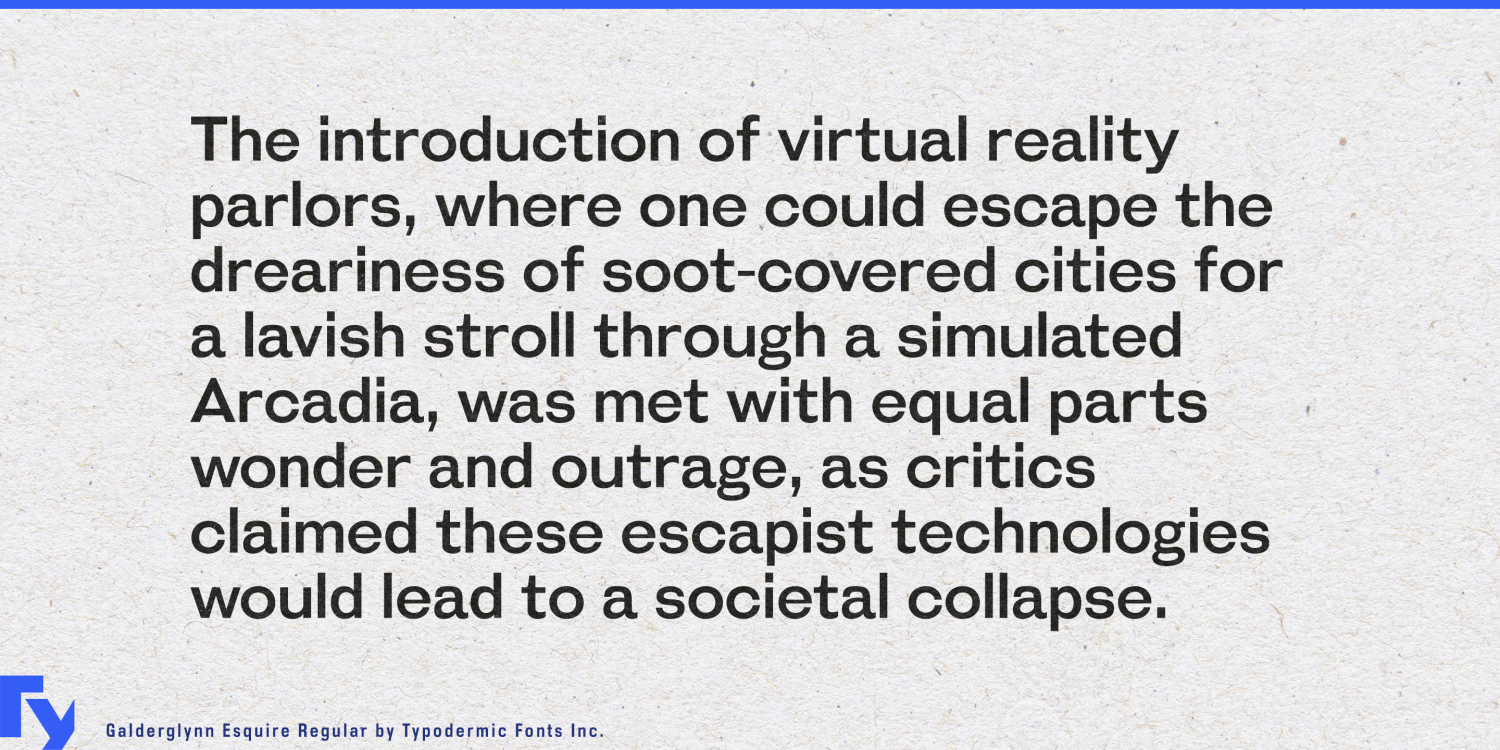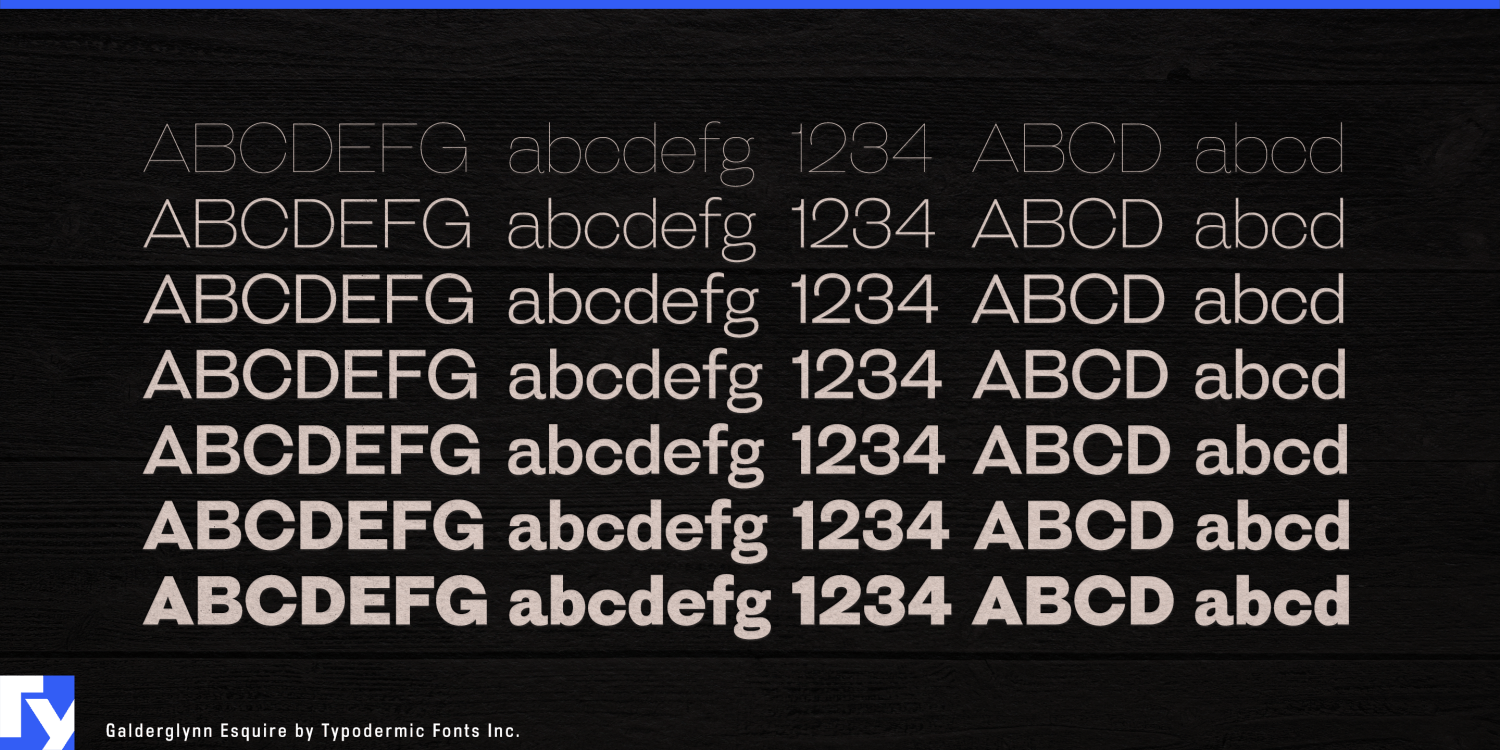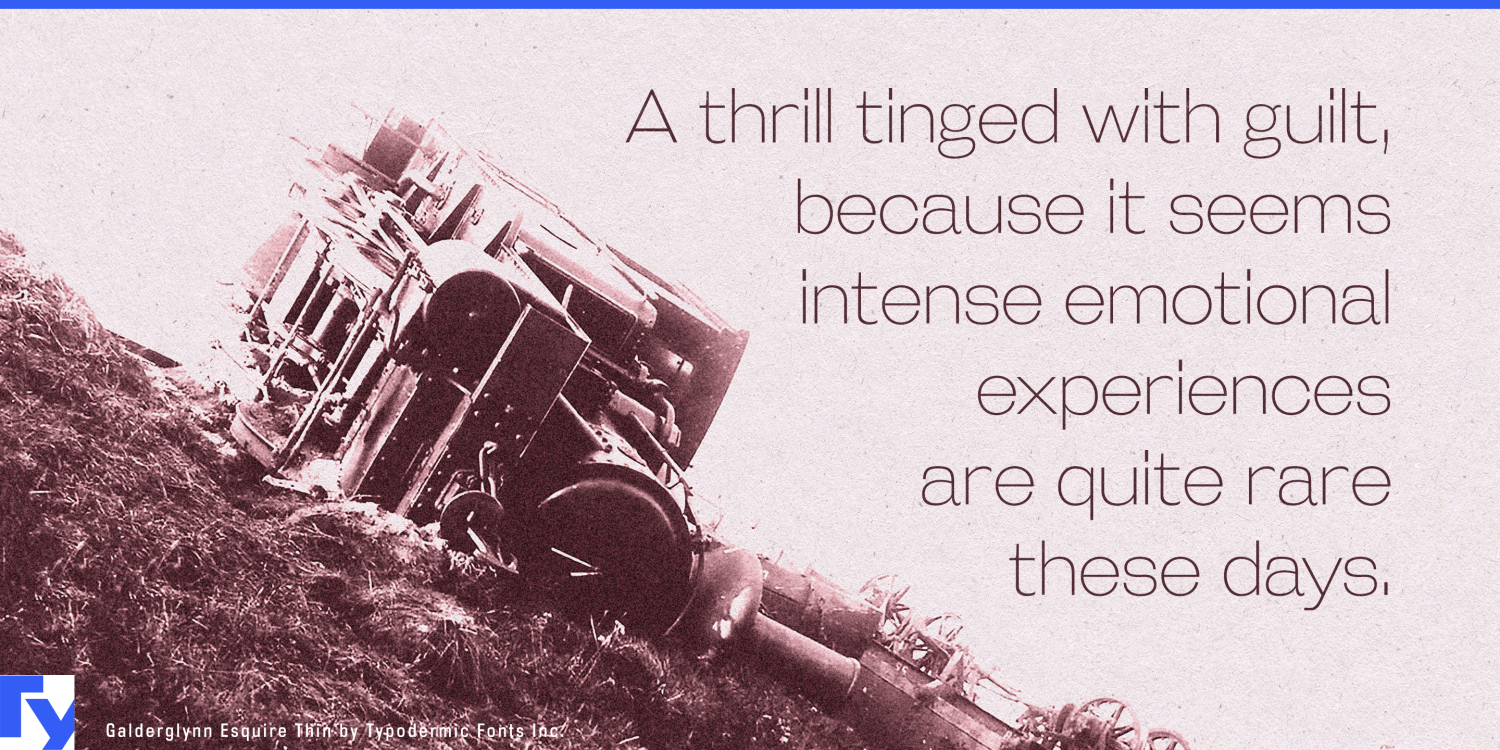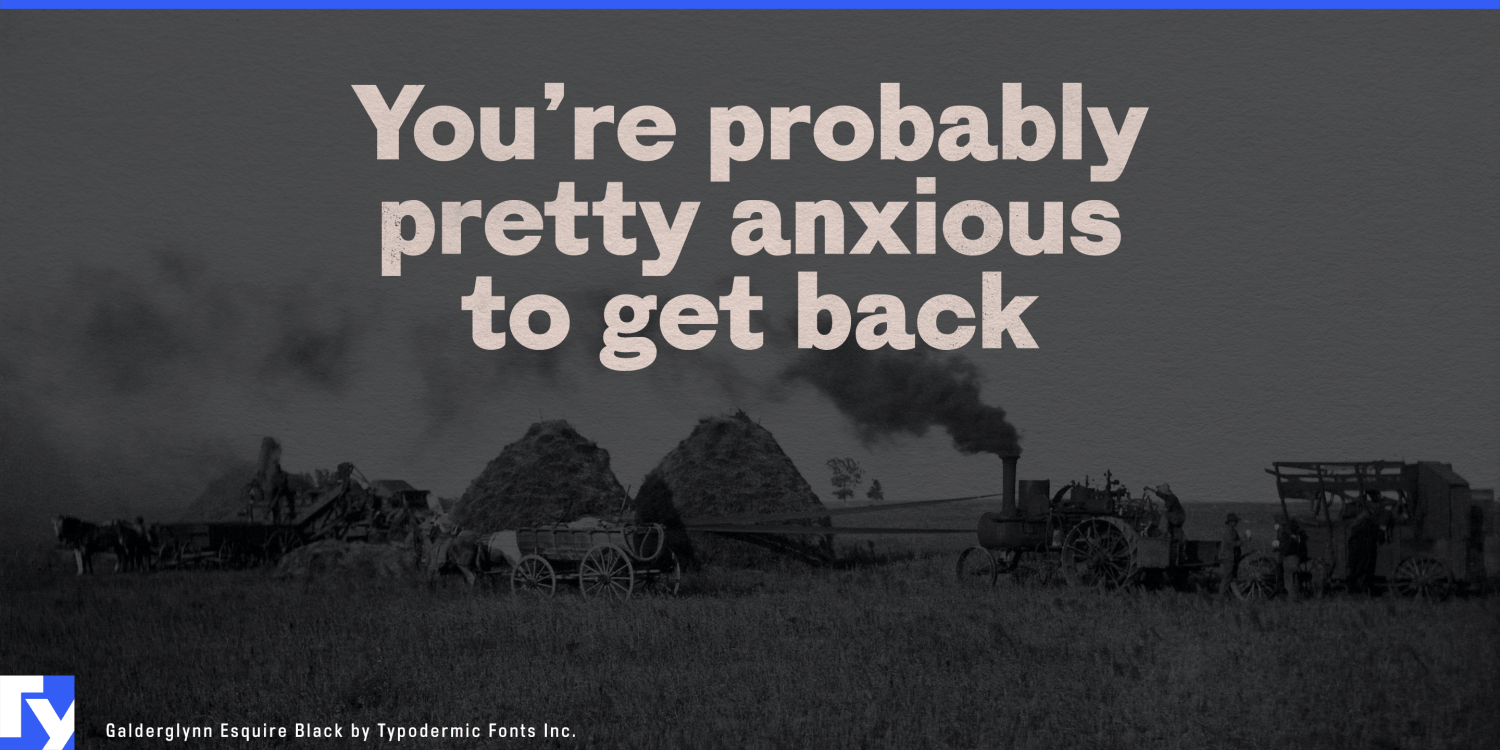
About Galderglynn Esquire
Step into the charming chaos of Galderglynn Esquire, a typeface that dances on the fine line between historical homage and typographic rebellion. This isn’t just another sans-serif revival—it’s a whimsical concoction that captures the…